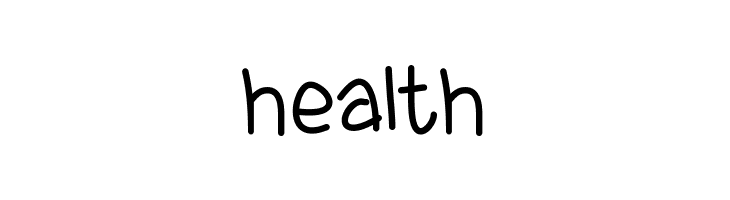
A playful, casual handwritten font with rounded edges and uniform thickness.
A bold, geometric font with block-like characters and minimal contrast.
A bold, italicized display font with a halftone effect and dynamic style.
Hand-drawn font of quirky head sketches for each character.
Bold, modern sans-serif font.
An elegant, flowing script font with a natural handwritten style.
A bold, artistic font with irregular, playful letterforms and a hand-drawn style.
A playful, bubble-like font with a graffiti-inspired style.
A playful, bold handwritten font with quirky, irregular strokes.
设计师偏爱 ExpensiveHabits, BROWN FOX, nlngnlng2, Wolf's Bane II Super-Expand Halftone Italic and HeadSketchesTwo,因为其造型干净、适用范围广—— 从品牌识别到落地页、海报都能胜任。